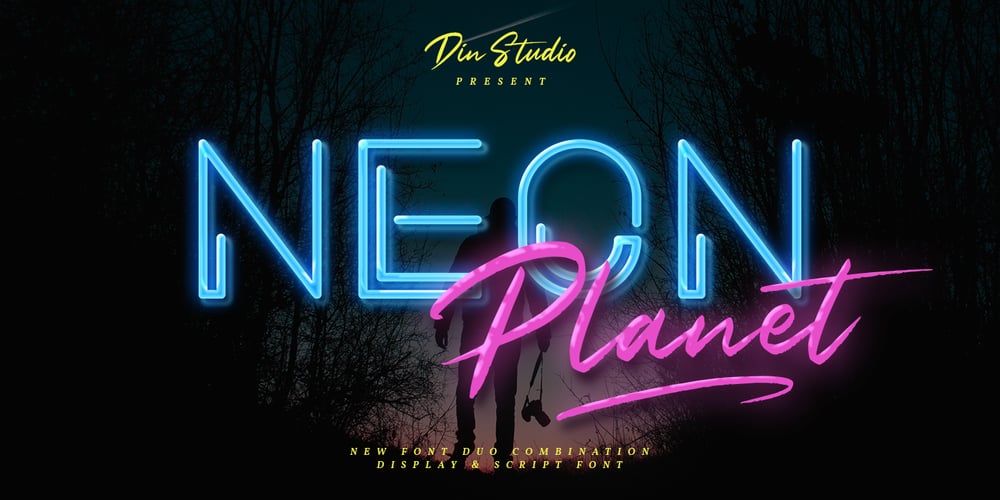
Neon Planet Font Family was designed by Donis Miftahudin and published by Din Studio. Neon Planet contains 2 styles and family package options. Neon Planet is a modern and futuristic font duo. Combining the neon shape design and the brush textured handwriting will make your design project more powerful. The font is suitable for any project that needs Retro, Modern, and Casual Vibes. Enjoy the Font!Features: Accents (Multilingual characters) PUA encoded Numerals and Punctuation (OpenType Standard)